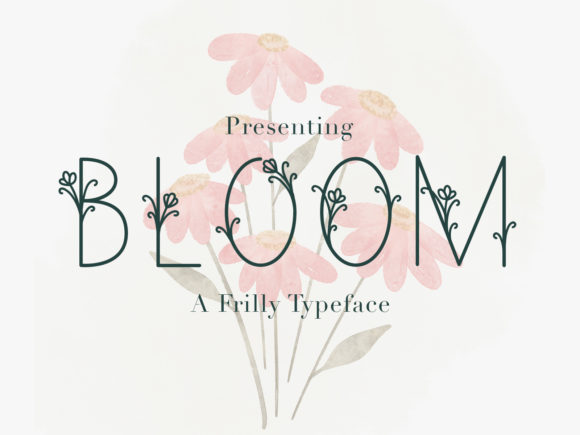
Bloom Font: Elevate Your Designs with Delicate Elegance
In the world of typography, a font can make or break a design. If you’re a designer or crafter looking for a touch of luxury and sophistication, look no further than the Bloom Font. This exquisite decorative font is designed to add a delicate and frail elegance to any project, making it perfect for those who appreciate the finer things in life.
The Beauty of Bloom Font
Bloom Font is a masterpiece of typographic design, featuring lovely ornaments on each character. The intricate details and flourishes add a level of refinement and poise to any text, making it ideal for high-end designs. Whether you’re working on a branding project, packaging, or marketing materials, Bloom Font is sure to impress.
One of the standout features of Bloom Font is its PUA (Private Use Area) encoding. This means that you can access all of the amazing glyphs and ligatures with ease, giving you complete creative control over your designs. No more tedious searching for the perfect character or manually inserting special characters – with Bloom Font, it’s all at your fingertips.
Luxury Spark for Your Designs
Bloom Font is designed to add a touch of luxury to any design project. Its delicate and frail appearance belies a level of sophistication and elegance that will elevate your work to new heights. Whether you’re creating a high-end brand identity, a beautiful wedding invitation, or a stunning packaging design, Bloom Font is the perfect choice.
Bloom Font is a versatile font that is perfect for designers and crafters alike. Its wide range of applications includes:
- Branding and identity design
- Packaging and label design
- Marketing and advertising materials
Why Choose Bloom Font?
With so many fonts on the market, why choose Bloom Font? Here are just a few reasons:
- Unique and elegant design: Bloom Font features a one-of-a-kind design that will set your work apart from the crowd.
- PUA encoding for easy access: With PUA encoding, you can access all of the amazing glyphs and ligatures with ease.
- Versatile and flexible: Bloom Font can be used in a wide range of design projects, from branding and packaging to marketing and crafting.
- Luxury and sophistication: Bloom Font adds a touch of luxury and sophistication to any design, making it perfect for high-end projects.
Get Ready to Bloom!
Here are some frequently asked questions about Bloom Font:
- What is Bloom Font?
- Bloom Font is a delicate and frail decorative font featuring lovely ornaments on each character.
- Is Bloom Font PUA encoded?
- Yes, Bloom Font is PUA encoded, making it easy to access all of the amazing glyphs and ligatures.
- What can I use Bloom Font for?
- Bloom Font can be used for a wide range of design projects, including branding, packaging, marketing, and crafting.